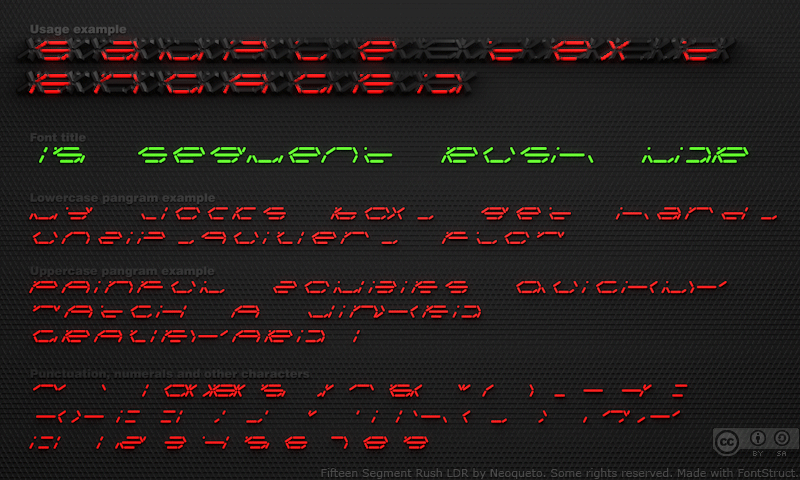
Font name: | Fifteen Segment Rush LDR |
Author: | Neoqueto |
Note by Neoqueto | |
15-segment display, experimental, super-techno face. The ZIP package contains also a monospaced version. |